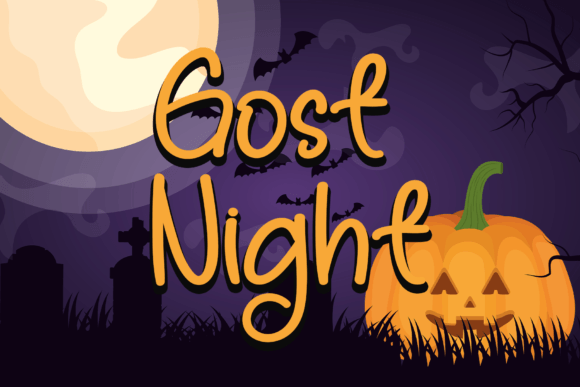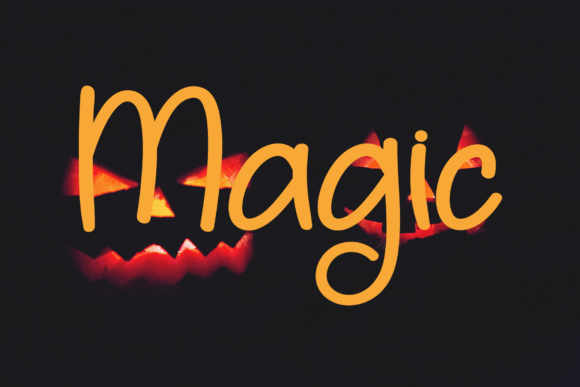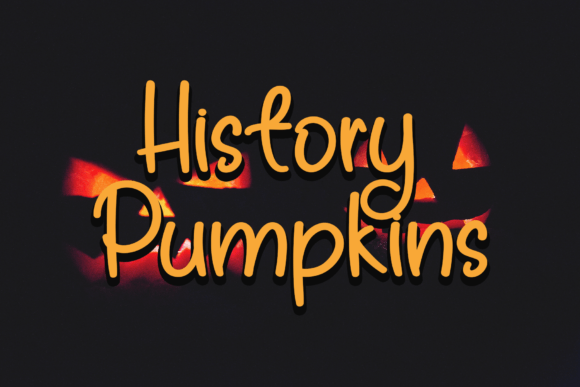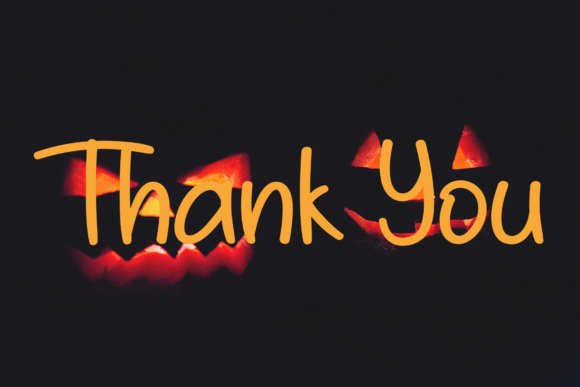
Halloween Party Font
About Halloween Party Font
“Halloween Party” is a sweet and beautiful handwritten font that adds a touch of charm and whimsy to your design projects. This versatile font is a valuable asset to your font library, capable of enhancing the visual appeal of a wide range of creative endeavors.
One of the standout qualities of “Halloween Party” is its playful and festive appearance. The font’s characters are crafted with a sense of fun and elegance, making it well-suited for various design contexts. Whether you’re working on Halloween-themed materials, invitations, greeting cards, or other projects, “Halloween Party” can infuse a sense of celebration into your designs.
Regardless of the topic or occasion, this font has the potential to enhance any creation. Its sweet and handwritten style adds a unique and personal touch to your text, making it more engaging and memorable.
With “Halloween Party” in your font collection, you have a delightful and versatile tool that can bring a sense of celebration and joy to your creative work. It serves as a reminder of how typography can elevate the visual appeal of your projects and set the right tone for special occasions.
In summary, “Halloween Party” is a sweet and beautiful handwritten font that can enhance a wide range of creative projects. Its playful and festive style makes it suitable for various design contexts, adding a touch of charm and celebration to any creation. This font is a versatile asset for designers looking to create engaging and memorable designs.